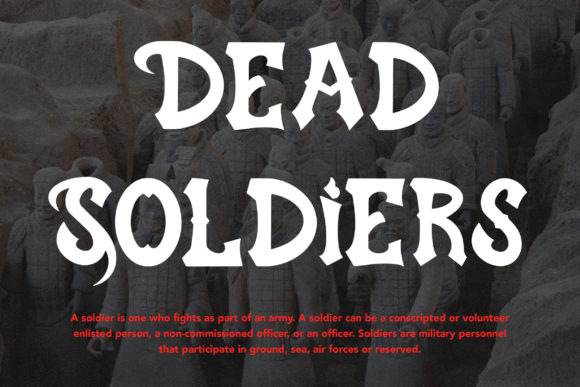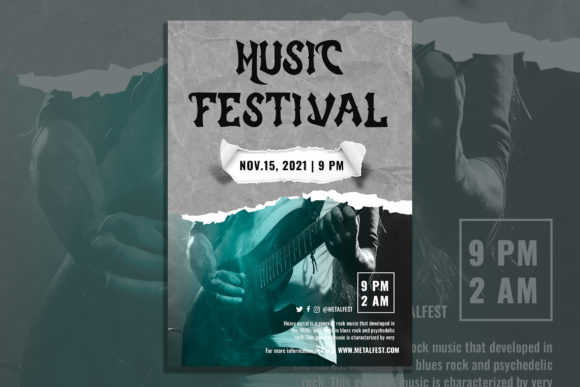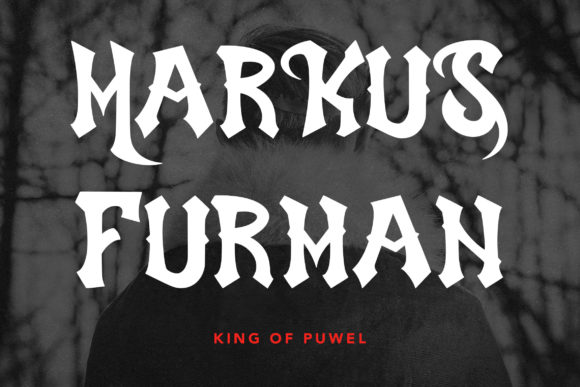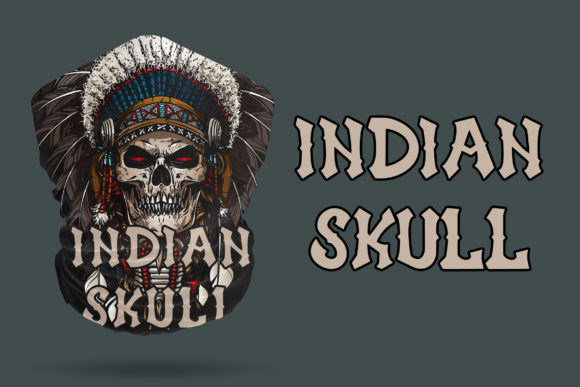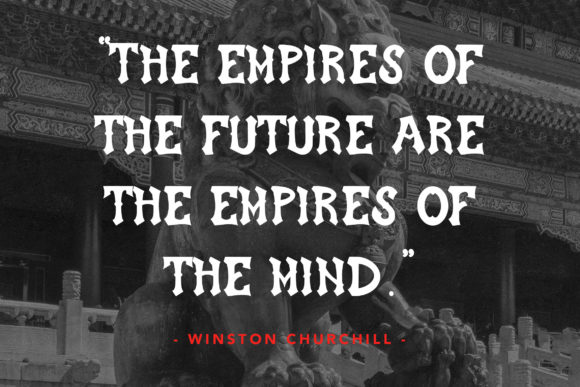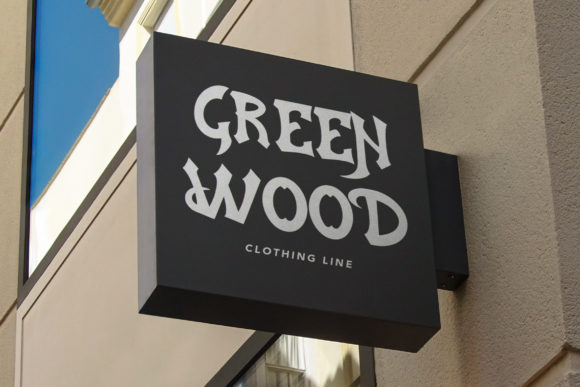
Introduction to Eternal Emperor Font
As designers, we’ve all been there – staring at a blank canvas, eager to bring our creative vision to life. The perfect font can be the missing piece that elevates our projects from good to great. And that’s where the Eternal Emperor Font comes in – a bold and thick lettered blackletter font that’s sure to make an impact.
With its PUA encoded glyphs and swashes, this font offers endless possibilities for creative expression. Whether you’re working on a high-quality design project or simply looking for a free download to spice up your next design, the Eternal Emperor Font is a valuable resource that’s sure to deliver.
Key Features of Eternal Emperor Font
- Unique, high-quality design with a regal and majestic feel, perfect for creative projects requiring a touch of elegance.
- Comprises a range of characters, including uppercase and lowercase letters, numbers, and special characters, making it a versatile design resource.
Honest Review: Eternal Emperor Font
I recently had the opportunity to work with the Eternal Emperor Font, and I must say it’s been a game-changer for my creative projects. This font is perfect for those who want to add a touch of elegance and sophistication to their designs.
- ✨ High-quality design: The Eternal Emperor Font is incredibly detailed and visually appealing, making it a great choice for any design project.
- ✨ Versatile: This font can be used for a wide range of creative projects, from branding and marketing materials to digital art and graphics.
- ⚠️ Limited font styles: While the Eternal Emperor Font is a high-quality design, it’s only available in a few styles, which may limit its versatility for some designers.
Overall, I’m thoroughly impressed with the Eternal Emperor Font. Its high-quality design, versatility, and free download make it an excellent resource for any designer. While there are a few limitations, I believe the benefits far outweigh the drawbacks. I highly recommend adding the Eternal Emperor Font to your design arsenal.
The Eternal Emperor Font is perfect for various design projects, including business cards, invitations, and brochures. It’s also great for creating digital designs such as social media graphics and presentations.